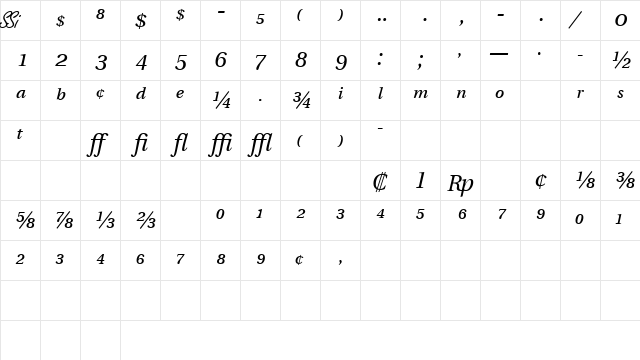
VeracityProSSK Italic
Design Context for VeracityProSSK
VeracityProSSK is a composed and adaptable typeface that performs quietly and consistently across a wide range of design contexts. The slanted form adds forward momentum and visual energy.